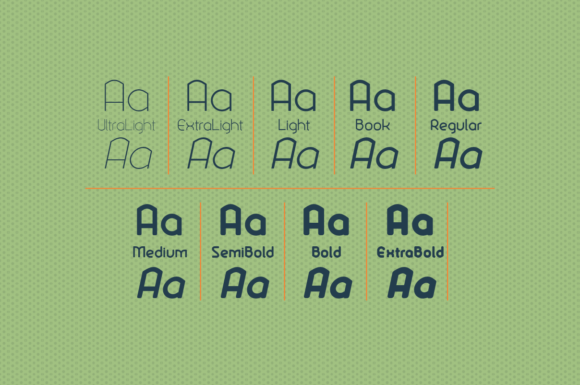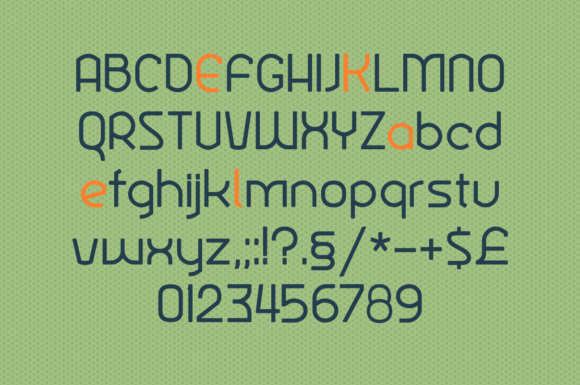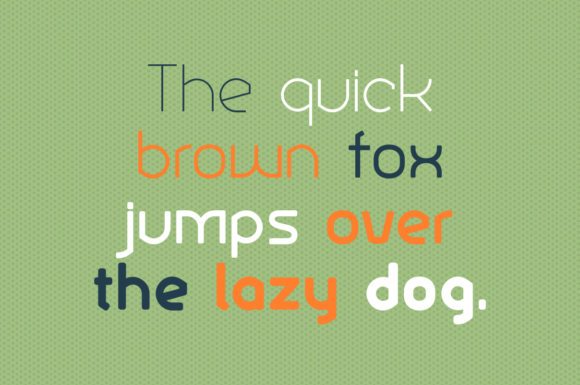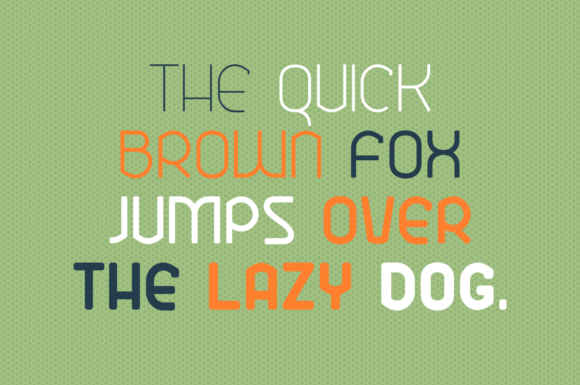
Introducing Ekela Font: The Ultimate Minimal Sans Serif for Creative Projects
Are you a designer, crafter, or creative looking for a font that can elevate your projects to the next level? Look no further than Ekela Font, a stunning minimal and round lettered sans serif font that’s perfect for a wide range of applications. In this article, we’ll dive into the features and benefits of Ekela Font, and explore how it can help you create visually stunning and effective designs.
What is Ekela Font?
Ekela Font is a carefully crafted sans serif font that’s characterized by its minimalist and rounded letterforms. Its clean and simple design makes it an incredibly versatile font that can be used in a variety of contexts, from digital designs to print materials. Whether you’re creating a logo, heading, or body text, Ekela Font is the perfect choice for designers and crafters who want to add a touch of elegance and sophistication to their work.
Key Features of Ekela Font
- Minimalist Design: Ekela Font features a minimalist design that’s perfect for modern and contemporary designs.
- Round Letterforms: The font’s rounded letterforms add a touch of friendliness and approachability to your designs.
- Highly Versatile: Ekela Font can be used in a wide range of projects, from digital designs to print materials.
- Easily Readable: The font’s clean and simple design makes it easily readable, even at small sizes.
Benefits of Using Ekela Font
So why choose Ekela Font for your next project? Here are just a few benefits of using this amazing font:
- Stand Out Designs: Ekela Font is designed to help your designs stand out from the crowd. Its unique and elegant design ensures that your projects will grab attention and leave a lasting impression.
- Easy to Pair: Ekela Font is highly versatile and can be easily paired with other fonts to create stunning and effective designs.
- Time-Saving: With Ekela Font, you can save time and effort in creating custom fonts or searching for the perfect font for your project.
How to Use Ekela Font in Your Designs
Using Ekela Font in your designs is easy! Here are a few tips to get you started:
- Pair with Bold Fonts: Pair Ekela Font with bold fonts to create stunning headings and titles.
- Use for Body Text: Use Ekela Font as body text for a clean and easily readable design.
- Add to Logos: Add Ekela Font to your logos for a touch of elegance and sophistication.
In conclusion, Ekela Font is a stunning minimal and round lettered sans serif font that’s perfect for designers and crafters looking to elevate their projects to the next level. Its highly versatile design, easily readable letterforms, and cost-effective solution make it an ideal choice for a wide range of applications. So why wait? Add Ekela Font to your creative toolbox today and start creating visually stunning and effective designs that stand out from the crowd!